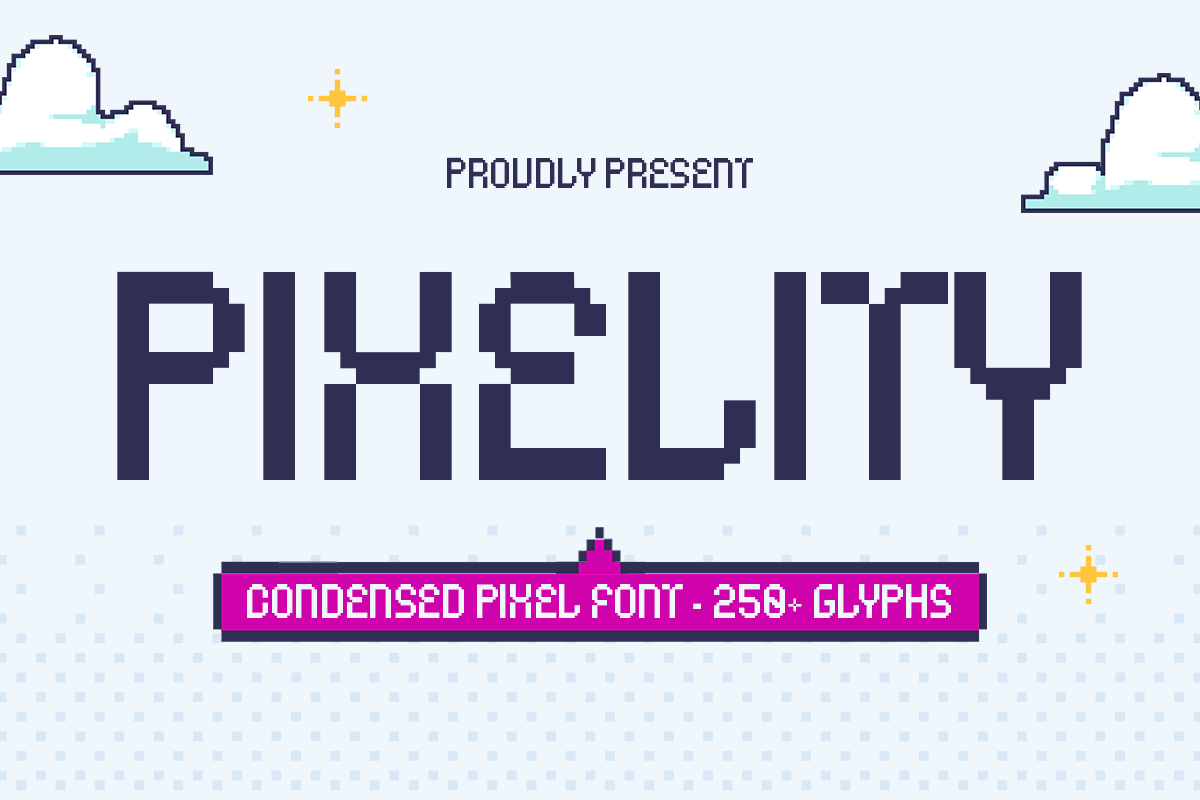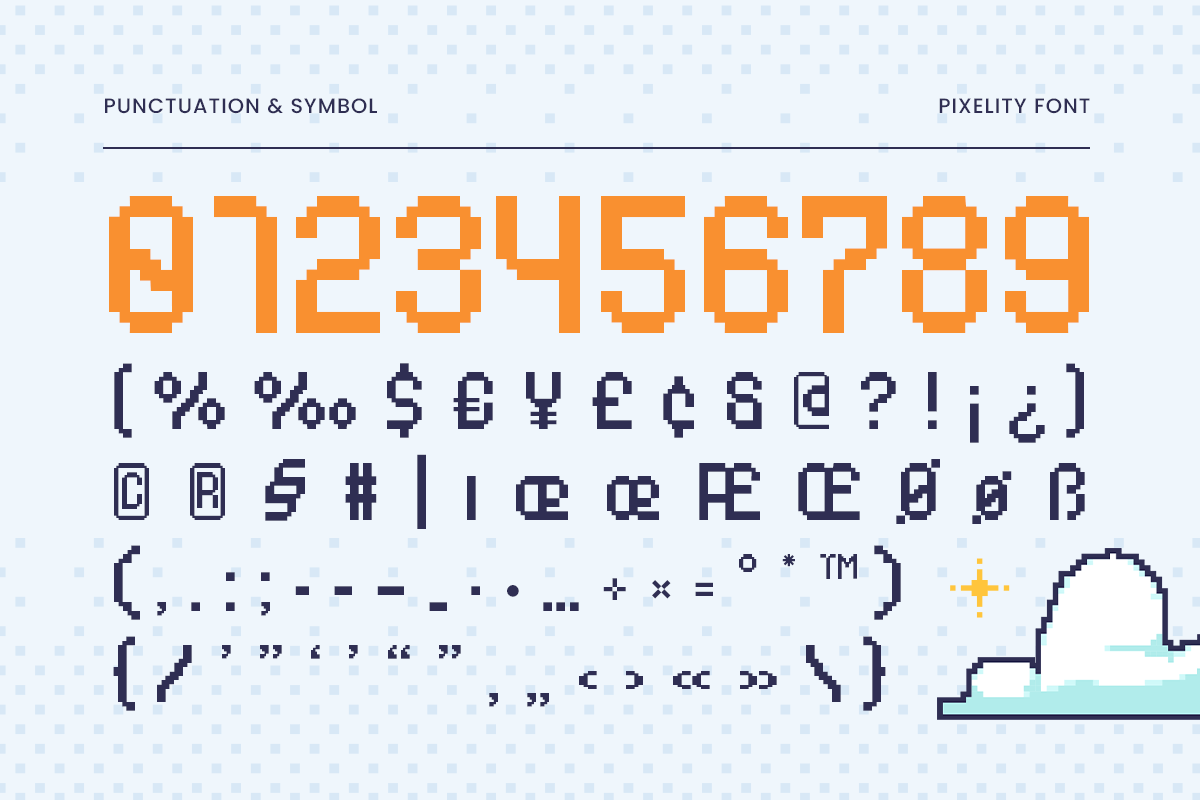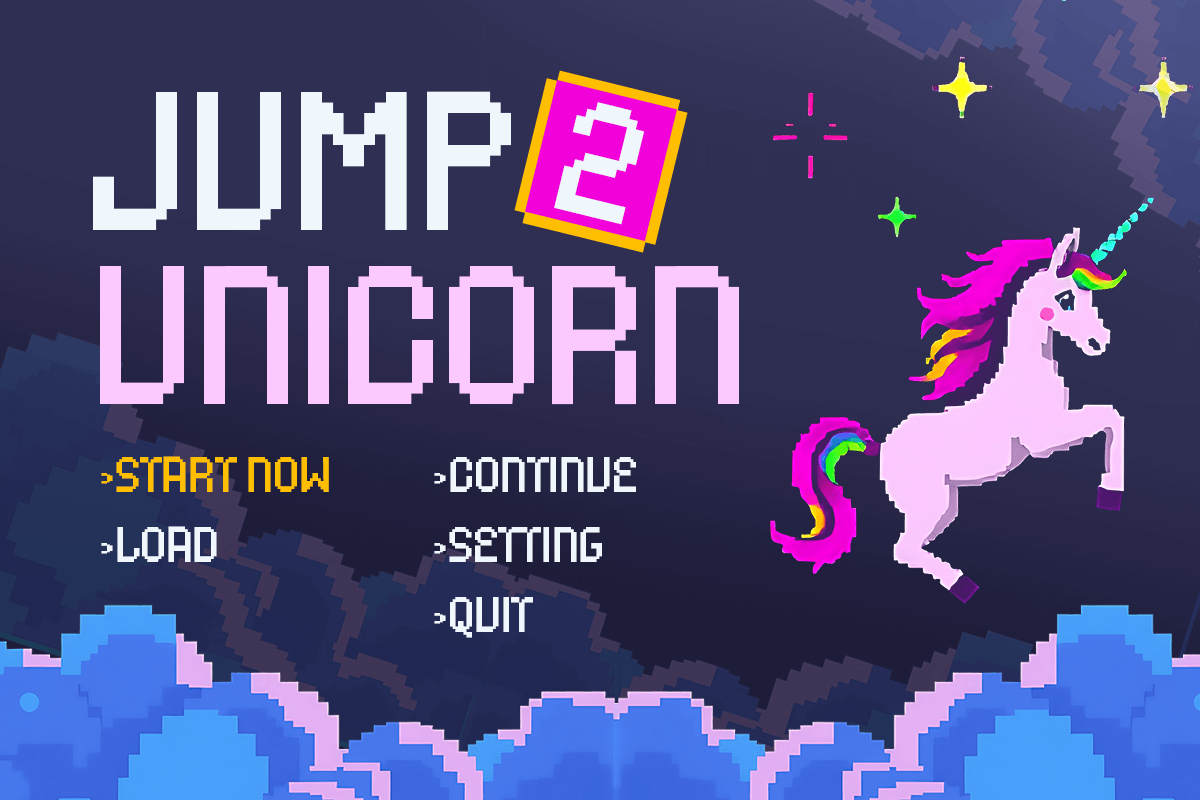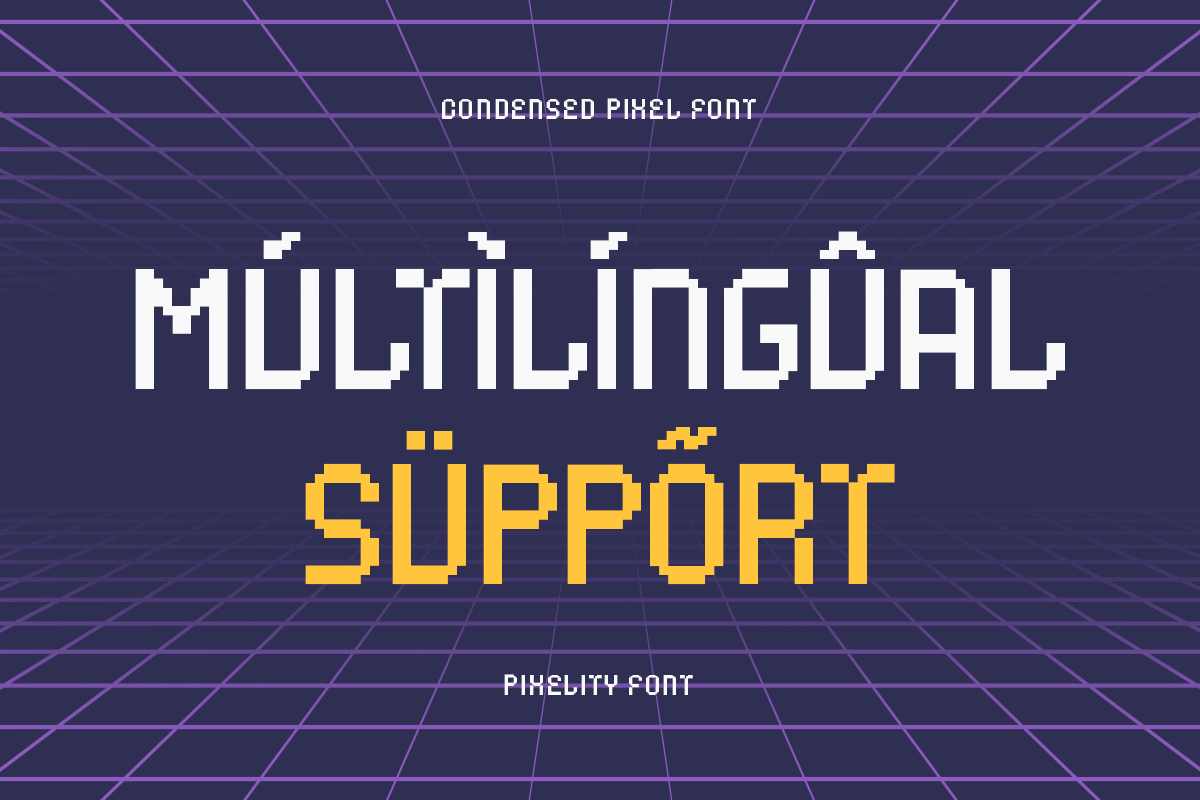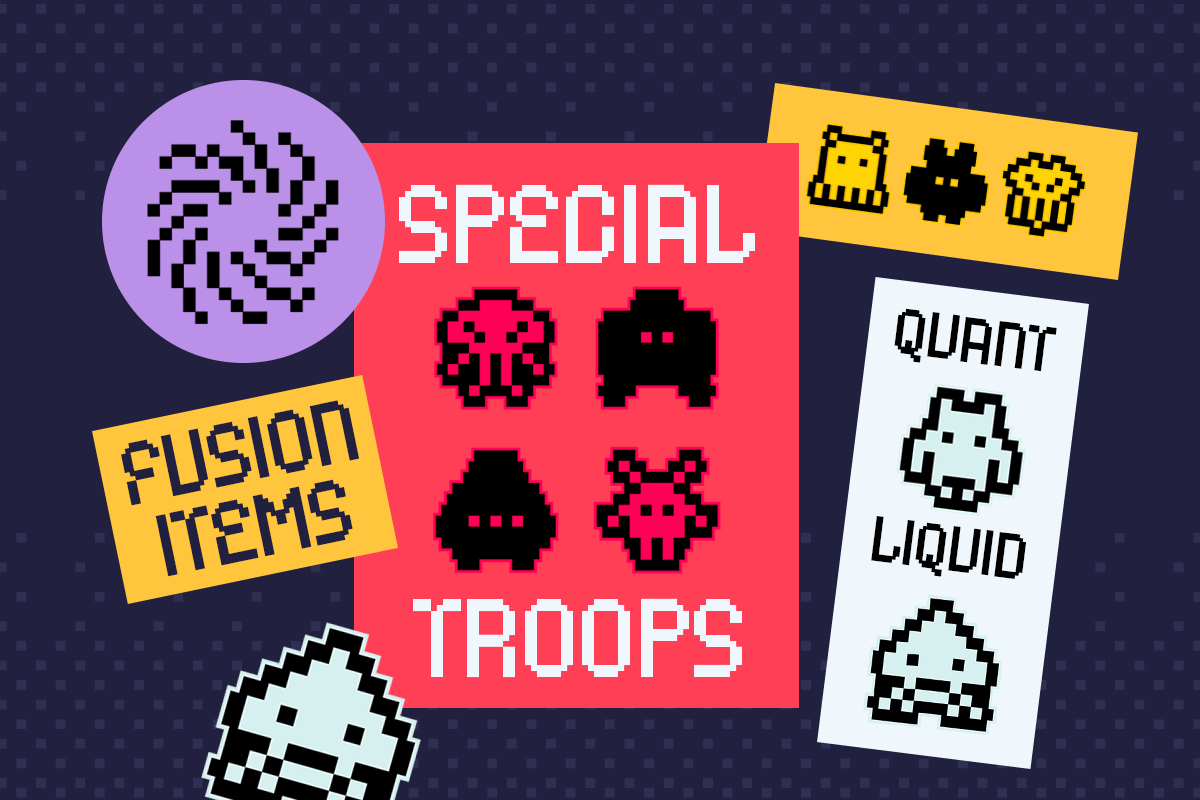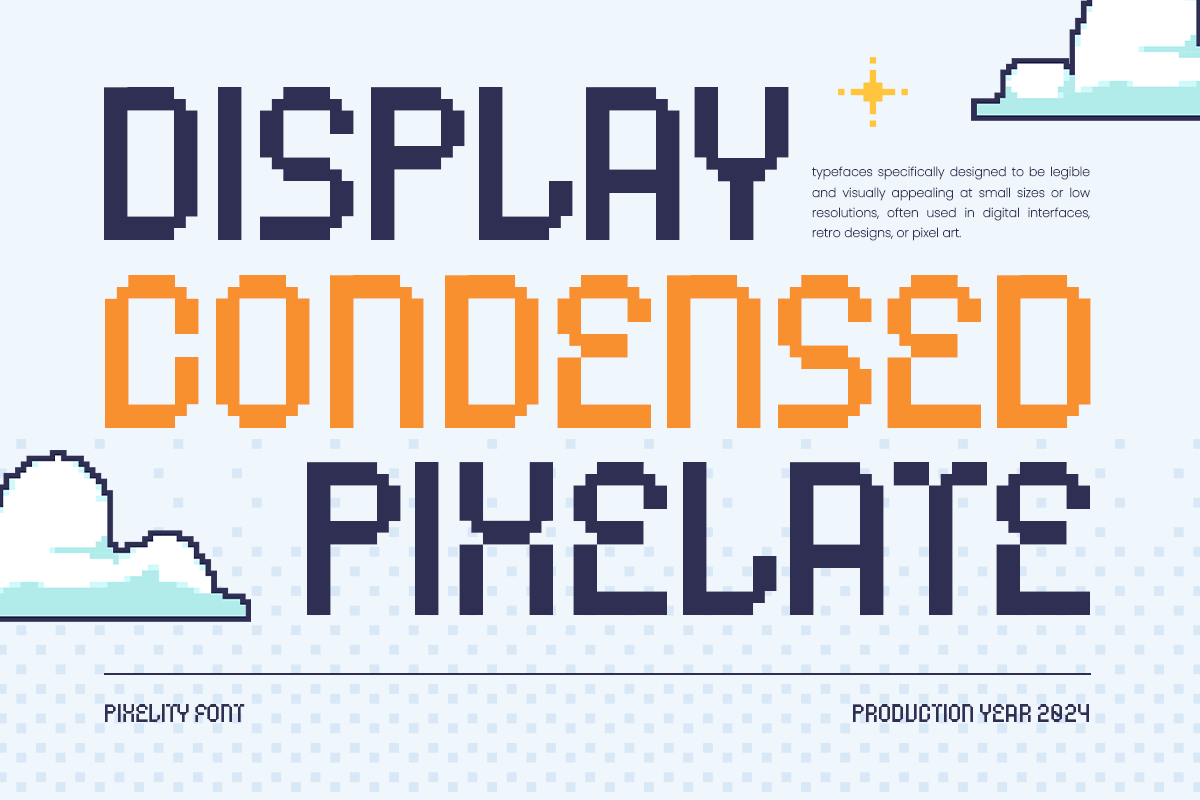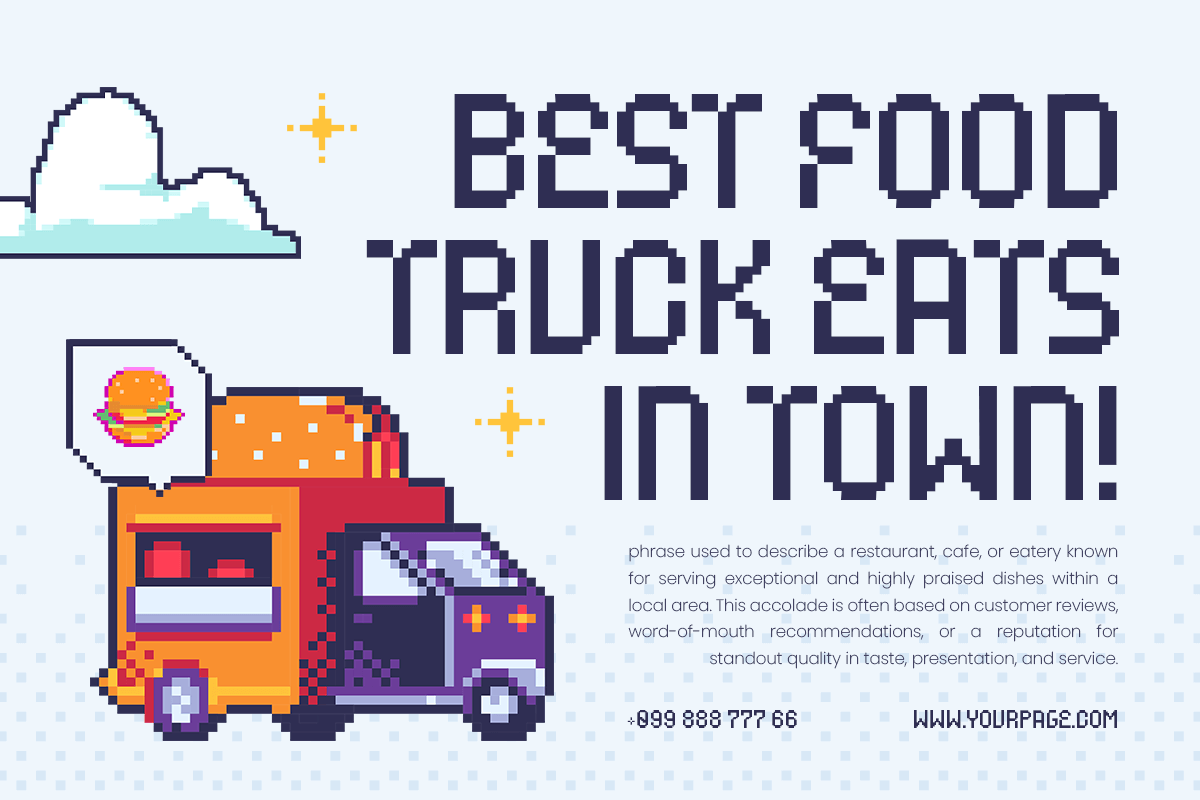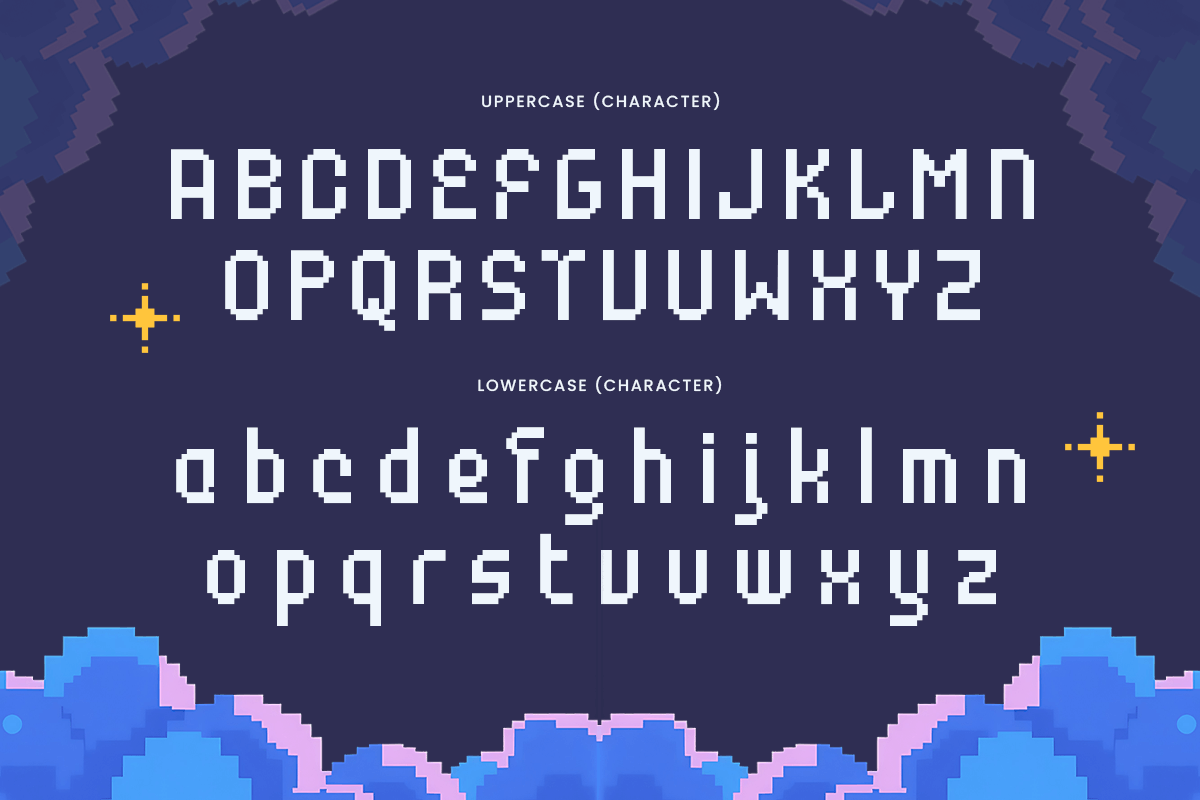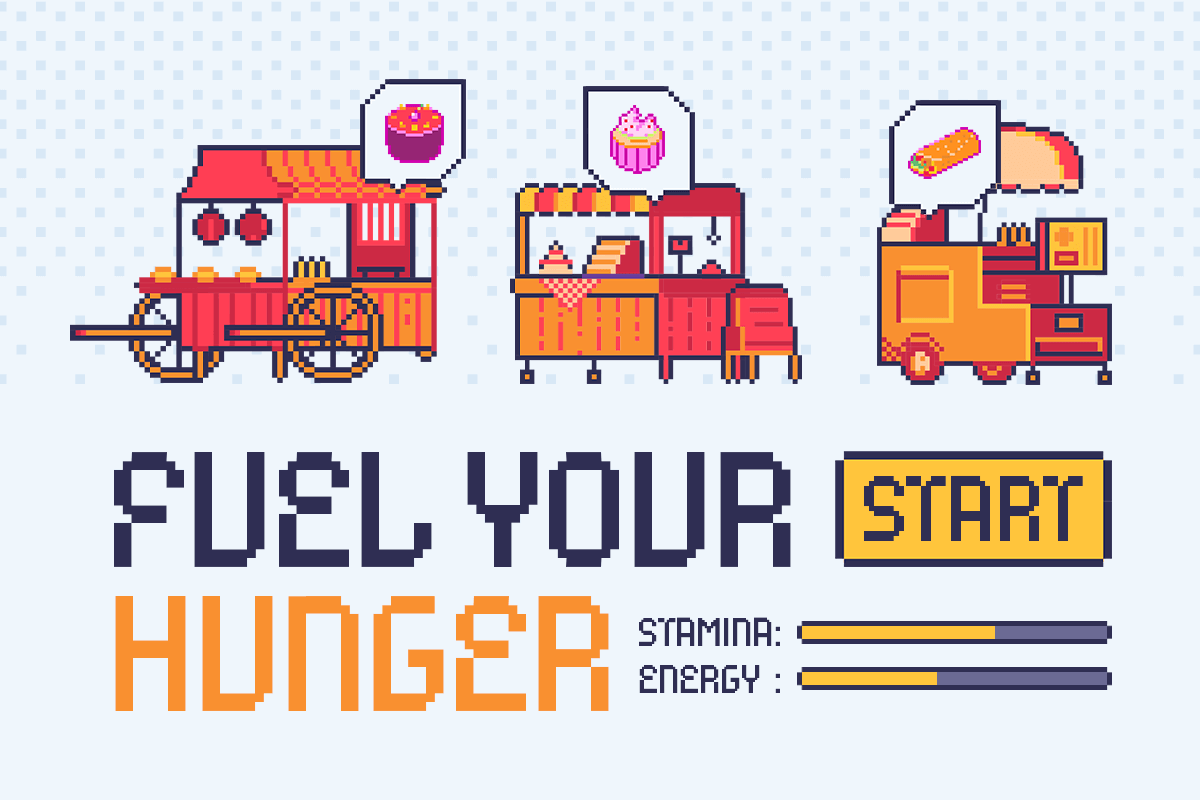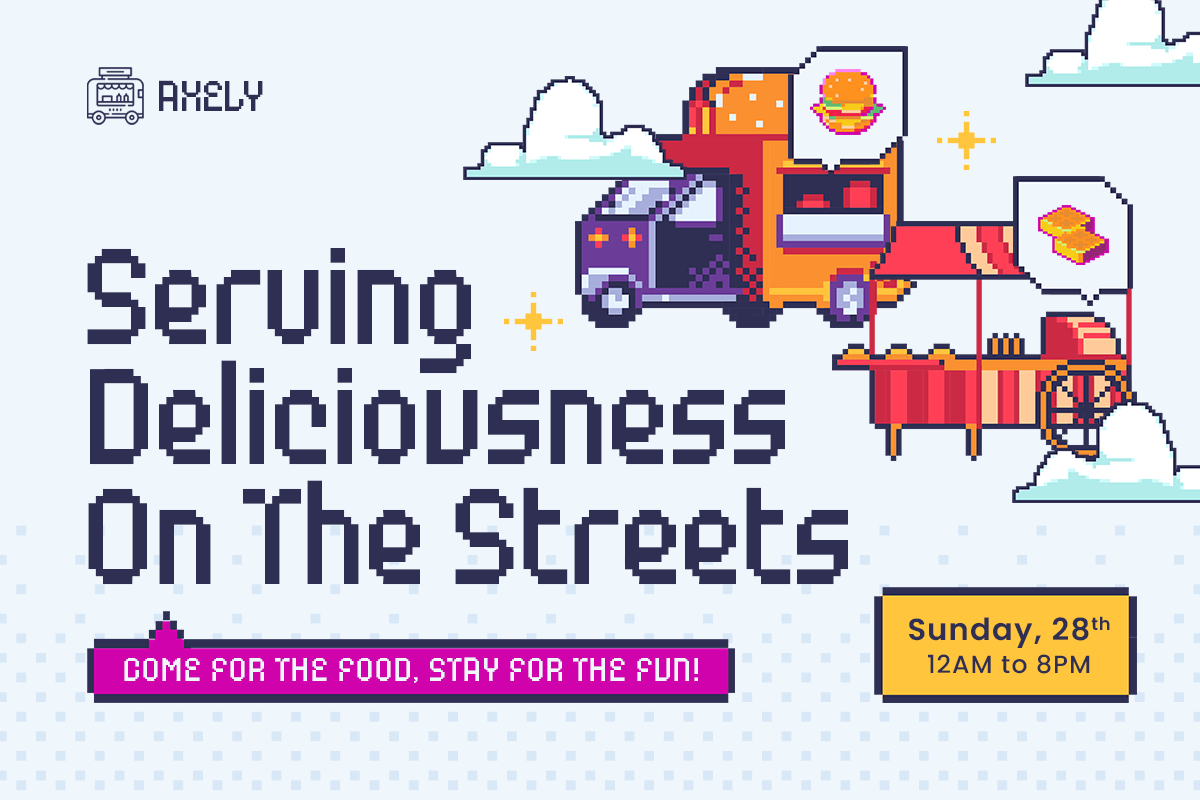
Pixelity – Condensed Pixel Font
Retro Meets Modern in a Pixel-Perfect Design
Pixelity is a bold condensed pixel font that brings the nostalgia of 8-bit gaming into the modern design era. Inspired by classic arcade games and pixel-based graphics, this font is designed to give a distinct digital touch to your projects. Its clean and structured form makes it perfect for tech-related branding, gaming logos, and futuristic design aesthetics.
Versatile for Gaming, Tech, and Digital Creations
Whether you’re creating a retro-themed game, a sci-fi poster, or a tech startup brand, Pixelity enhances your design with its unique pixelated style. The condensed structure allows for better space utilization, making it great for headlines, UI elements, and digital advertisements. It’s a must-have font for those who love blending old-school pixel art with modern layouts.
Perfect for a Wide Range of Creative Projects
Pixelity is more than just a pixel font; it’s a tool for designers looking to make a statement. From branding materials to website headers, from YouTube thumbnails to futuristic album covers, this font delivers a bold, edgy, and playful touch. If you’re aiming for a fusion of retro charm and contemporary design, Pixelity is the ultimate choice.
Multilingual Characters available for:
Afrikaans, Albanian, Asu, Basque, Bemba, Bena, Breton, Chiga, Cornish, Dutch, English, Estonian, Filipino, Finnish, Friulian, Galician, German, Gusii, Indonesian, Irish, Italian, Kabuverdianu, Kalenjin, Kinyarwanda, Luo, Luxembourgish, Luyia, Machame, Makhuwa-Meetto, Makonde, Malagasy, Manx, Morisyen, North Ndebele, Nyankole, Oromo, Portuguese, Quechua, Romansh, Rombo, Rundi, Rwa, Samburu, Sango, Sangu, Scottish Gaelic, Sena, Shambala, Shona, Soga, Somali, Spanish, Swahili, Swedish, Swiss.